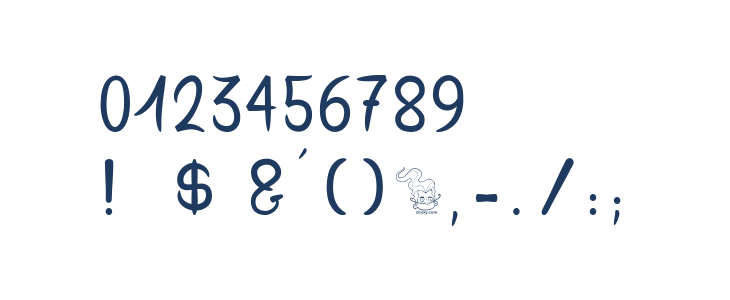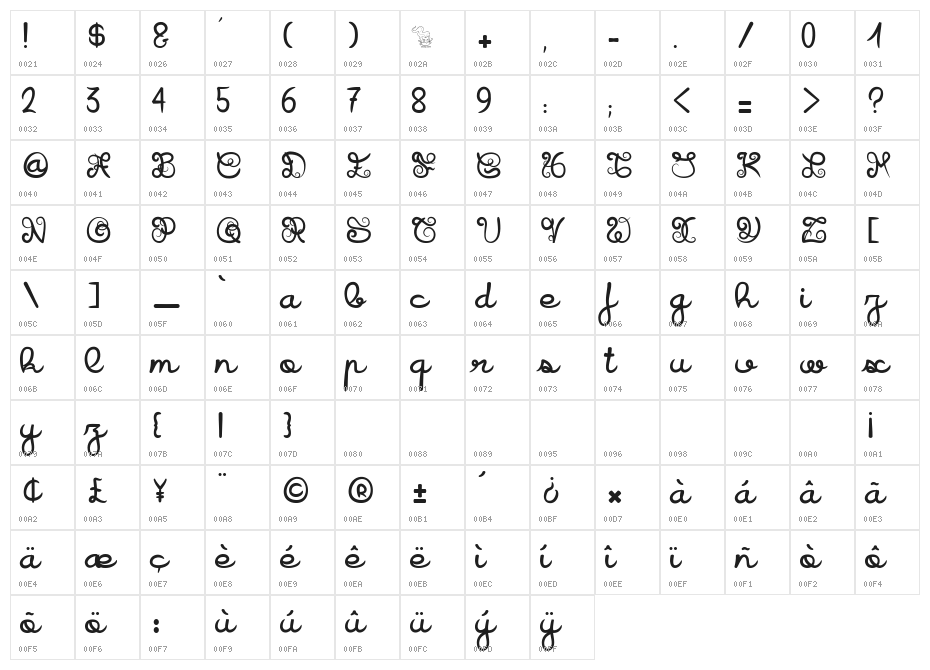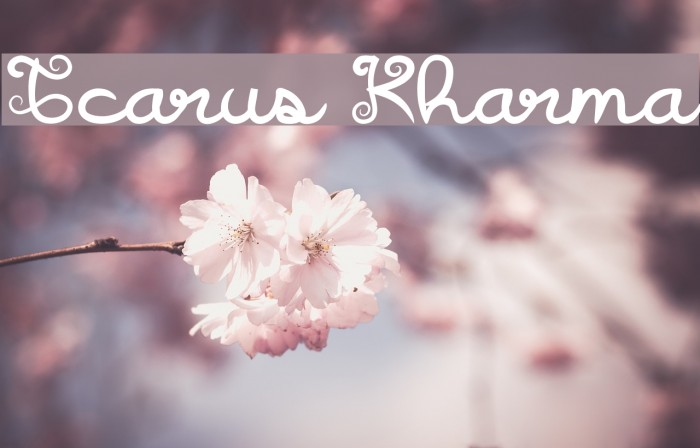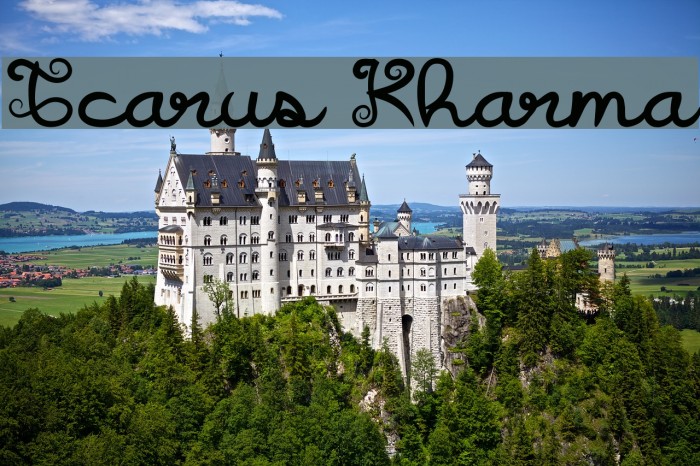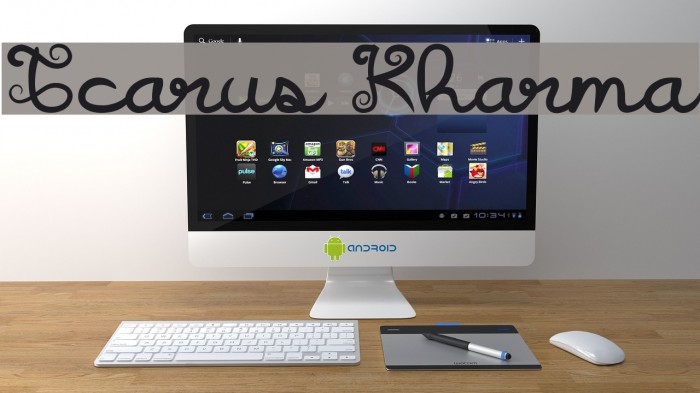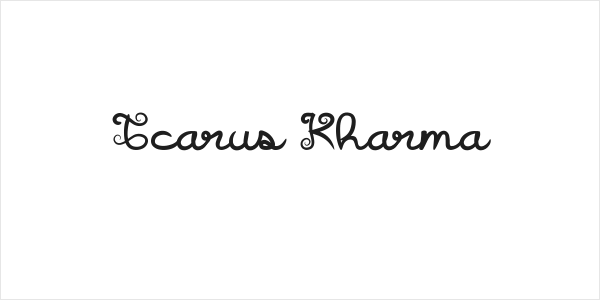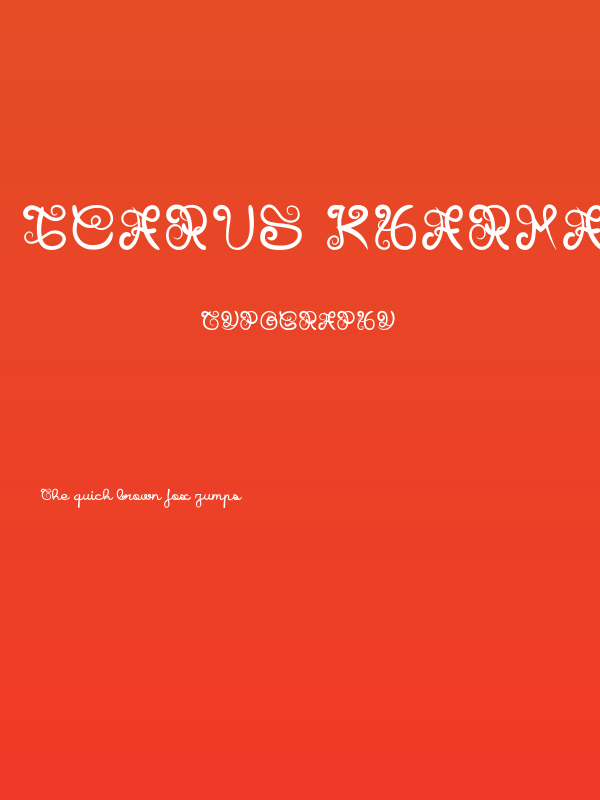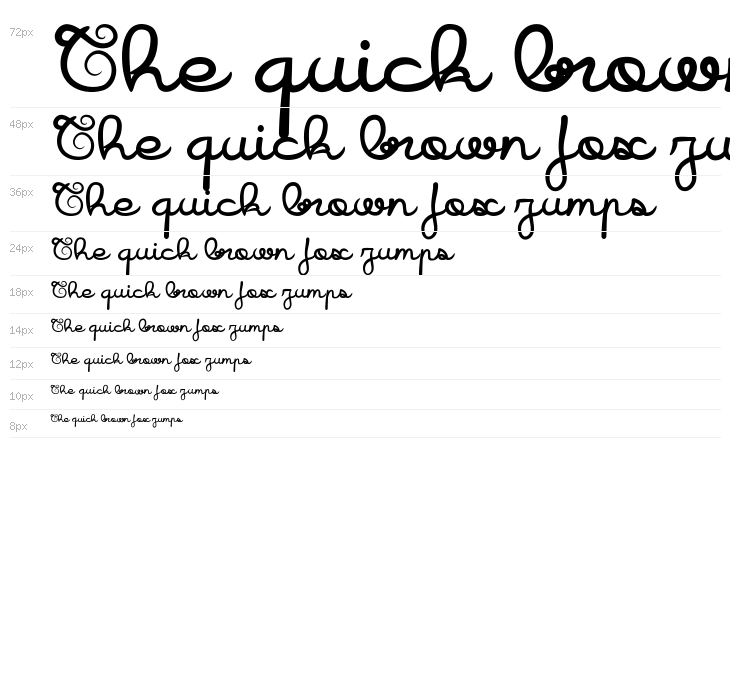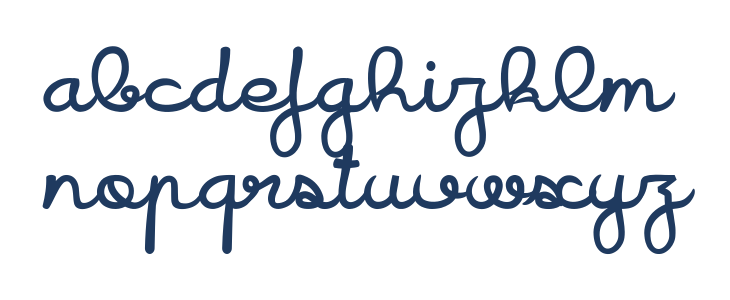
Icarus Kharma Font
Icarus Kharma Description
This font features a whimsical and decorative style, characterized by its intricate swirls and loops. The uppercase letters are particularly ornate, with each character displaying unique embellishments that give it a playful and artistic flair. The lowercase letters maintain a more cursive and flowing appearance, providing a nice contrast to the elaborate uppercase. The numbers are bold and rounded, maintaining the playful theme. Special characters are also included, matching the overall decorative style. This font is ideal for projects that require a touch of creativity and elegance.
Use CaseLogos, Invitations, Artistic Posters
Proposed ProjectsIdeal for invitations, greeting cards, artistic posters, and branding projects that require a creative and elegant touch.